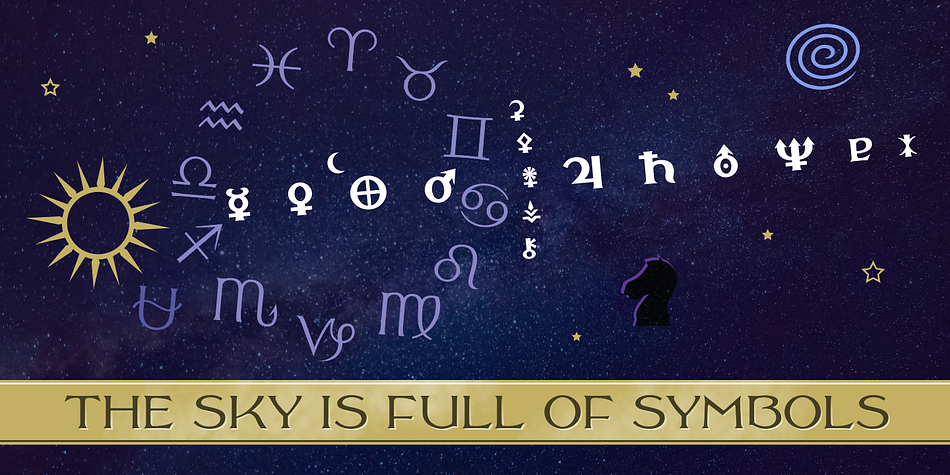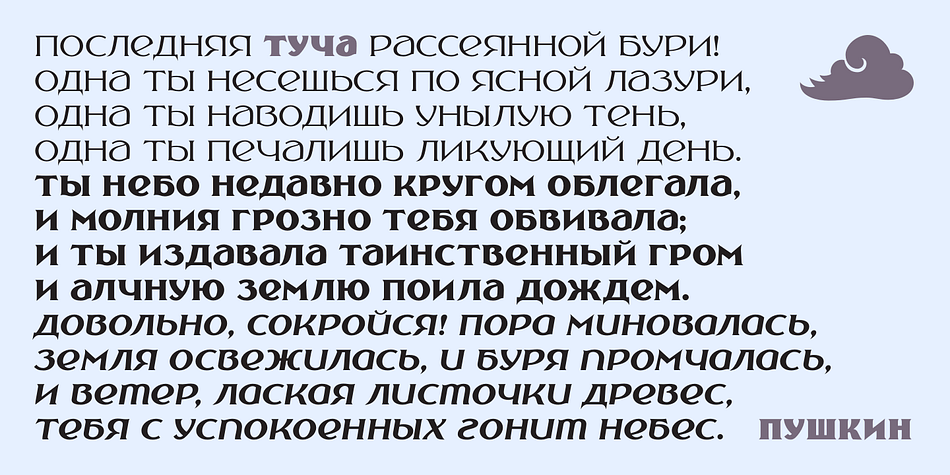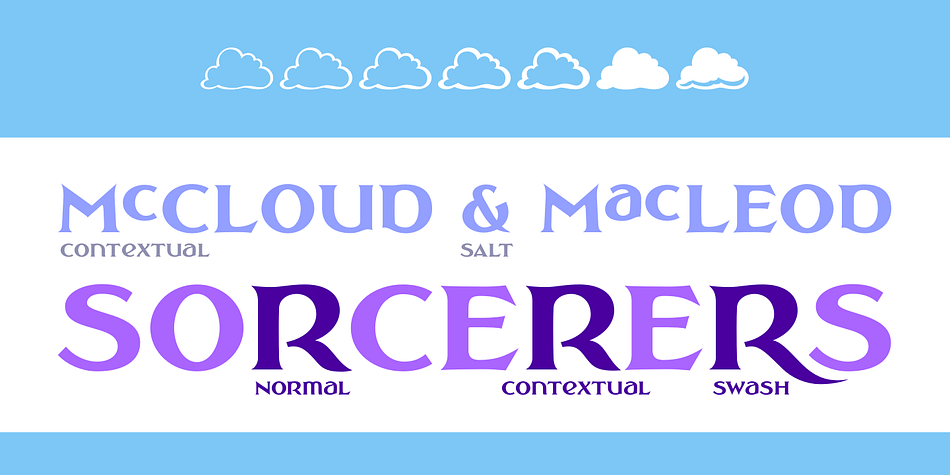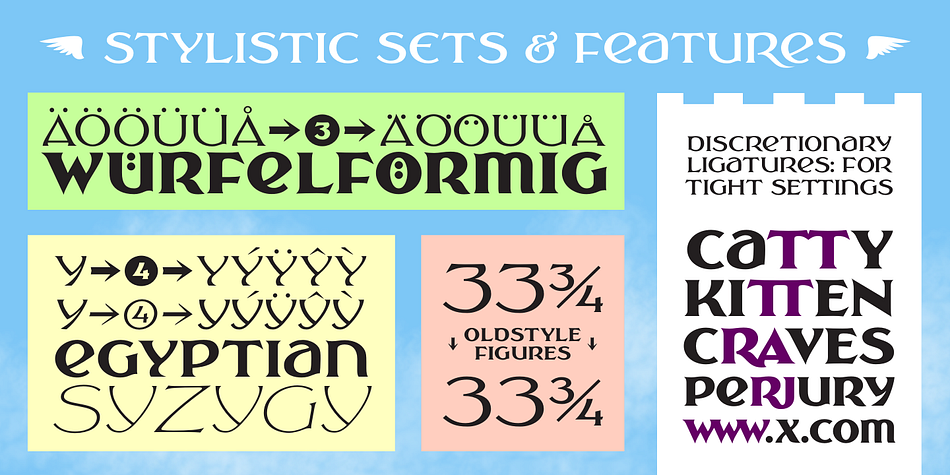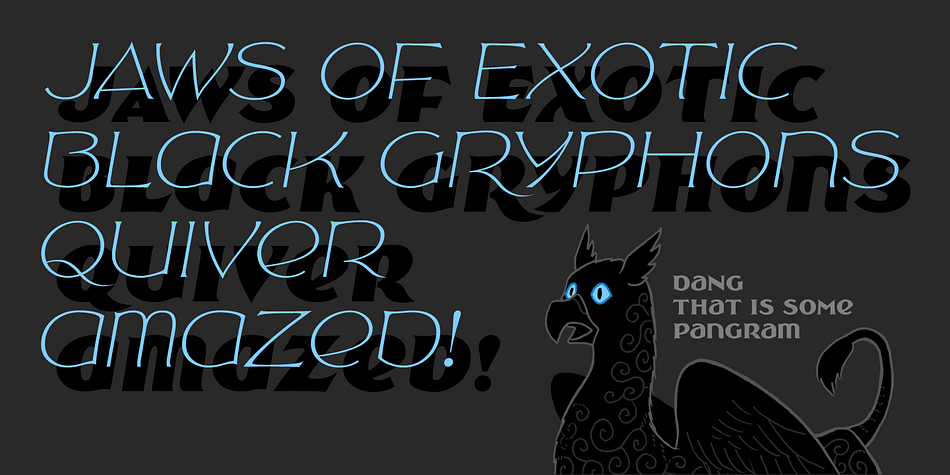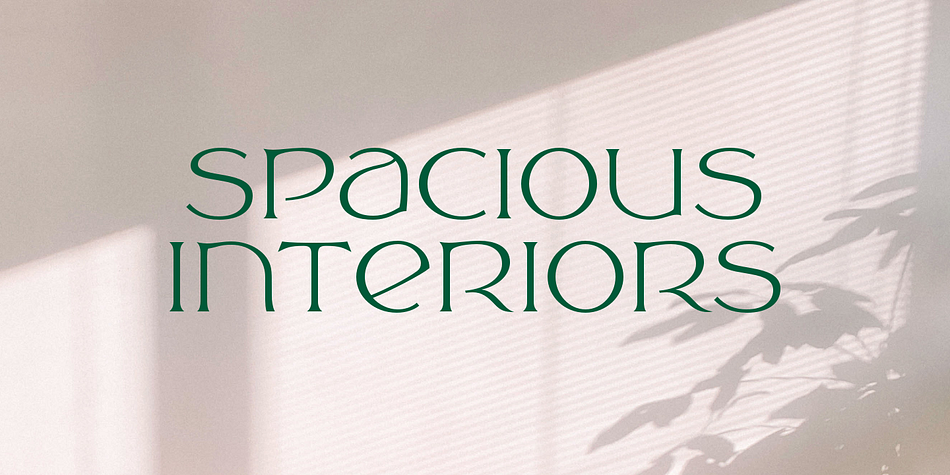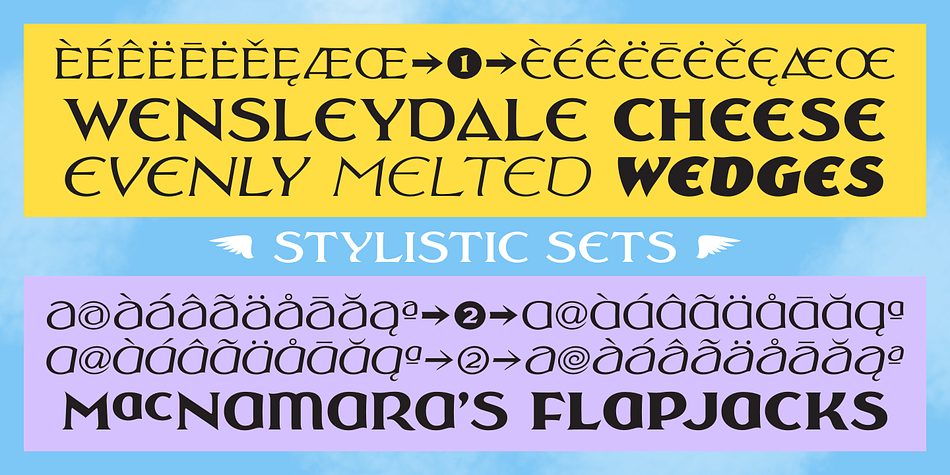
Designed by K. Pease, Cerulea is a display serif font family. This typeface has fourteen styles and was published by Cerulean Stimuli .
Cerulea is a unicase from the world of the sky. Drawing inspirations from Art Nouveau, Classical Roman, and Uncial styles, Cerulea’s wide, spacious bowls, sharp points, and subtle wandering curves evoke airiness, flight, and fantasy.
Seven weights, and true italics for each, range from zephyrous to thunderous. Vary the mood every time you choose between the serious capital form of a letter, the more fanciful lowercase form, or another variant in the stylistic sets.
The more than 800 glyphs cover pan-European Latin, Greek, Cyrillic, fractions, circled numbers, planet and zodiac symbols, card suits, chess pieces, ornaments, and more.